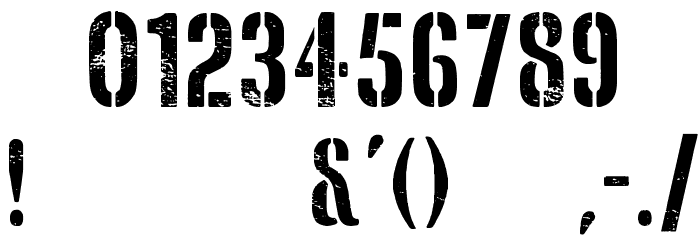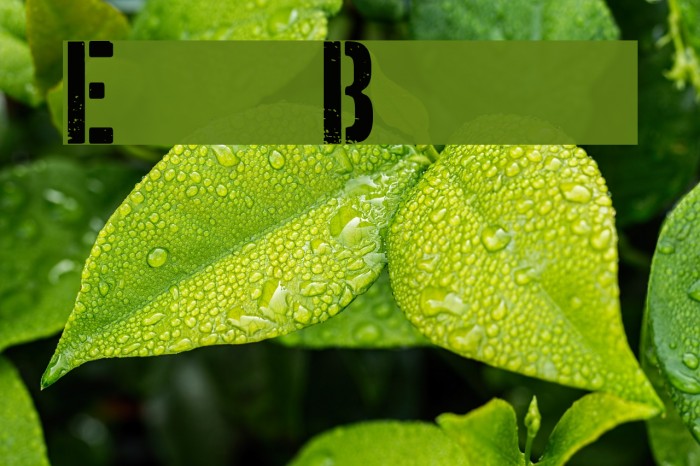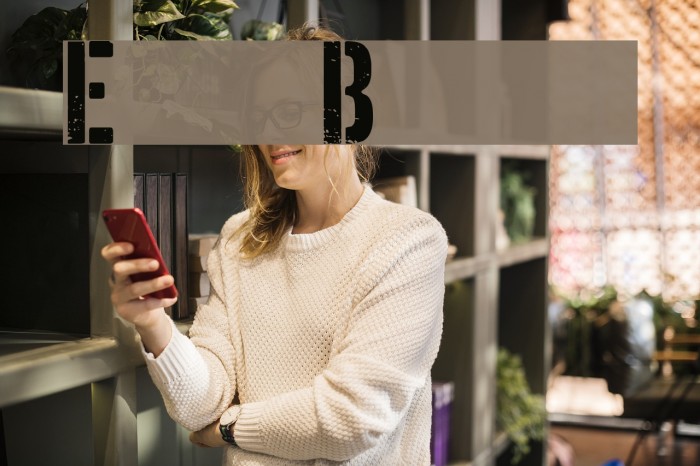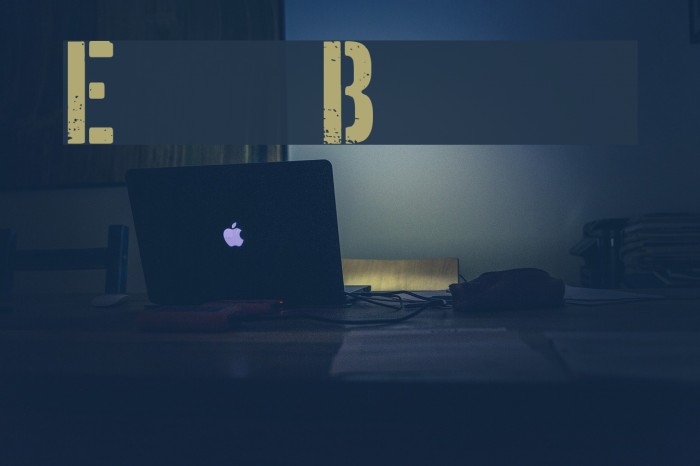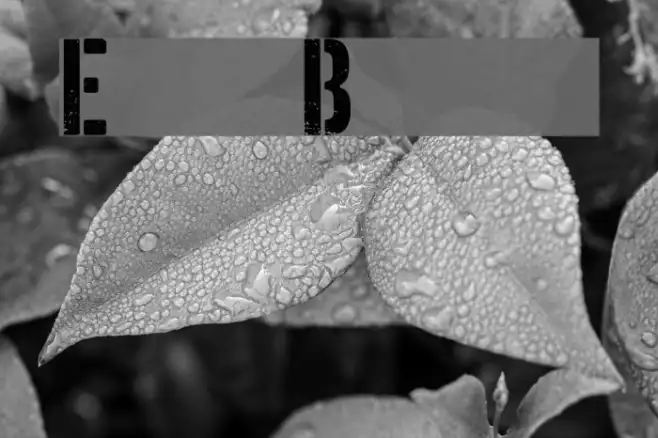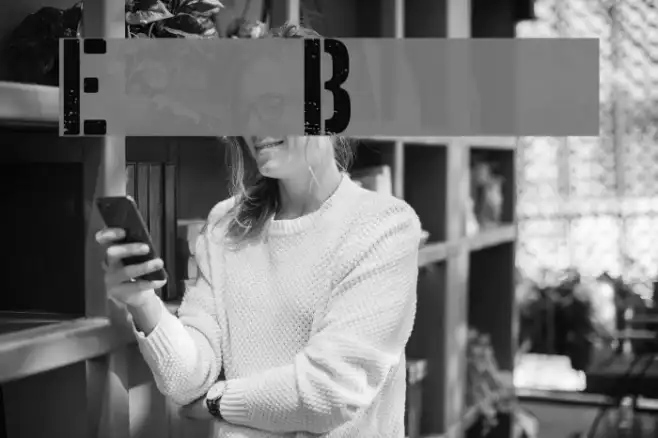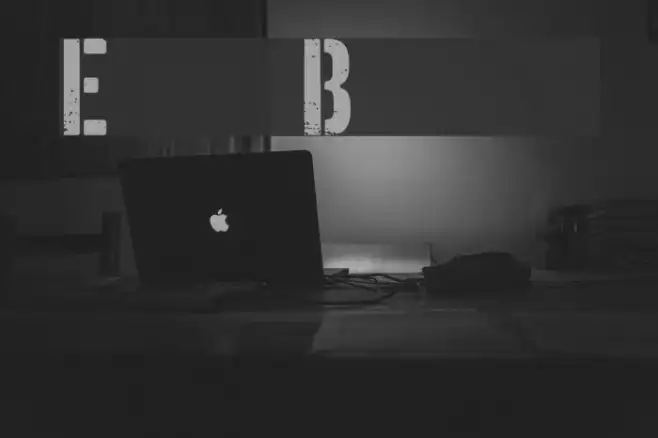
East Border Font
This font features a bold, distressed style with a stencil-like appearance. The characters have a rugged, worn texture that gives them a vintage, industrial feel. The uppercase letters are prominent and impactful, while the numbers and special characters maintain the same distressed aesthetic. The font's design suggests a sense of strength and durability, making it suitable for projects that require a bold statement. The overall look is both eye-catching and versatile, ideal for creating a strong visual impact.
A bold, distressed stencil-style font with a vintage industrial feel.
- Proposed Projects: Ideal for posters, signage, branding, and any design requiring a bold, rugged aesthetic.
- Overall Style: Vintage, Industrial